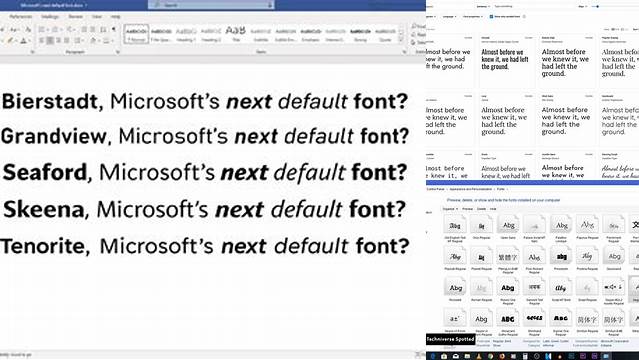
Microsoft Word Default Fonts: A Historical Look
Hey guys! Ever stopped to think about the fonts that pop up every time you open Microsoft Word? You know, the ones that stare back at you, waiting for your words to fill the page? They're more than just pretty faces – they're a crucial part of how we experience and interact with digital text. The journey of Microsoft Word's default fonts is a fascinating story of technological evolution, changing aesthetic preferences, and the subtle art of making words look, well, just right. Let's dive in and explore this typographic adventure!
The Early Days: Times New Roman Takes Center Stage
Okay, rewind to the late 80s and early 90s. Imagine a world where personal computers were becoming increasingly common in homes and offices. Microsoft Word was making its debut, and with it came a font that would become almost synonymous with the application itself: Times New Roman. Why Times New Roman, you ask? Well, back in the day, there was a strong desire to mimic the look of printed books and documents. The typeface, designed by Stanley Morison and commissioned by The Times of London in 1931, was already a well-established and respected font for its readability and classic appeal.
Microsoft Word's initial choice of Times New Roman wasn't random; it was a strategic decision. The goal was to make the transition from typewriters to computers as smooth as possible. Times New Roman's serifs (those little strokes at the ends of letters) and its relatively narrow design contributed to its excellent legibility, especially at smaller sizes and lower resolutions, which was a significant factor given the limited screen capabilities of the time. Plus, its familiarity made it a safe and comforting choice for users already accustomed to seeing it in newspapers, magazines, and printed books. The influence of Times New Roman wasn't just about aesthetics; it was about setting a standard. It aimed to make the text on computer screens mirror the look and feel of traditional printed material. This approach played a key role in helping people accept the new technology.
However, Times New Roman wasn't the only font in the mix back then. Microsoft Word also offered other options, like Courier New, a monospaced font (where each character takes up the same amount of horizontal space), perfect for coding or emulating typewriters. There were also fonts like Arial, a sans-serif typeface that offered a clean, modern alternative. But in the beginning, Times New Roman was the default. It was the first font users saw when they opened a new document. This choice influenced how people perceived and used the application, influencing the way they wrote, edited, and presented their work. Times New Roman's dominance in the early versions of Microsoft Word highlights how important visual communication and design were, even in the early days of computing. It was more than just text; it was about creating a familiar and accessible experience for everyone.
The Evolution of the Default: Shifting with the Times
As technology advanced and user preferences changed, so did the default fonts in Microsoft Word. Around the year 2007, Microsoft made a significant change. It announced that Calibri would be the new default font, replacing the long-standing Times New Roman. This shift reflected broader trends in design and a move towards a more modern aesthetic. The choice of Calibri was a direct response to the evolving needs and expectations of users. The design of Calibri is a sans-serif font, known for its clean lines, its readability on screen, and its overall contemporary feel. This move to Calibri symbolized the shift from the traditional, print-focused design of the past to a design that acknowledged the growing importance of digital display and readability on screens.
Calibri, along with other fonts like Cambria (another popular choice), reflected the changing world of digital text and communication. With the rise of the internet and digital documents, the demands on fonts changed. Readability on screens, especially at different resolutions and sizes, became paramount. Calibri was designed to be particularly clear and easy to read on computer screens. The shift to this font made Microsoft Word better suited to the changing landscape of digital media. This shift was also a sign of the times. It showed a growing interest in new design trends and an effort to reflect what users desired. In a way, it was a sign of Microsoft's responsiveness to the latest design styles. This wasn't just a small change; it was a statement about how Microsoft saw the future of word processing. The choice of Calibri showcased the dynamic character of design in relation to technology. It showed how Microsoft Word was becoming relevant in the ever-evolving digital age.
Font Wars: Arial vs. Times New Roman and the Rise of Alternatives
Throughout the history of Microsoft Word, the font debate has been quite the topic! The conversation usually centers around two main contenders: Times New Roman and Arial. Times New Roman, with its traditional serifs, was the standard for a long time, known for its classic look and readability in print. Arial, on the other hand, is a sans-serif font known for its clean, modern style, and it became a popular choice for its clear appearance on screens. This rivalry is more than a font choice, it represents two distinct styles.
The arguments for each font come down to personal preference and context. Those who love Times New Roman often appreciate its traditional feel, excellent readability, and historical significance, especially for formal documents and academic papers. On the other hand, Arial fans admire its simplicity, legibility on digital screens, and its modern, versatile style, which suits a variety of document types.
Interestingly, the differences between Times New Roman and Arial extend beyond aesthetics. The design choices and features of each font play an important role in its usability. Times New Roman's serifs enhance readability, especially in printed material, by guiding the eye along the text. But, Arial, without serifs, often appears clearer on screens. Arial's design lends itself to digital display.
Beyond these two, there's a whole world of fonts available in Microsoft Word. Fonts like Calibri, a sans-serif font chosen for its modern look and screen-friendly design, have also become popular. In addition to the defaults, many other fonts are available, offering different styles and features to meet different needs. The font choices show Microsoft Word's adaptability. It reflects how the software is adapting to a changing landscape of design and user preferences. It is offering more options and a more user-friendly environment. This is how Microsoft Word continues to evolve as a flexible tool that caters to its users' various preferences and requirements.
Conclusion: The Ongoing Story of Word's Fonts
The story of Microsoft Word's default fonts is a story of constant evolution and adaption. It reflects the continuous developments in technology, changing design trends, and the users' demands. From the classic elegance of Times New Roman to the modern look of Calibri and beyond, the choice of fonts has always influenced the user experience, style, and readability of digital text. As technology keeps advancing, the default fonts will undoubtedly continue to evolve, mirroring the ever-changing landscape of digital communication. So, the next time you open Microsoft Word, take a moment to appreciate the fonts – they’re not just letters on a screen; they're a significant part of the digital story. The selection of these fonts demonstrates Microsoft's constant effort to provide a user-friendly and visually appealing environment. The ongoing story of Microsoft Word's fonts reminds us of the dynamic relationship between design, technology, and the way we communicate.